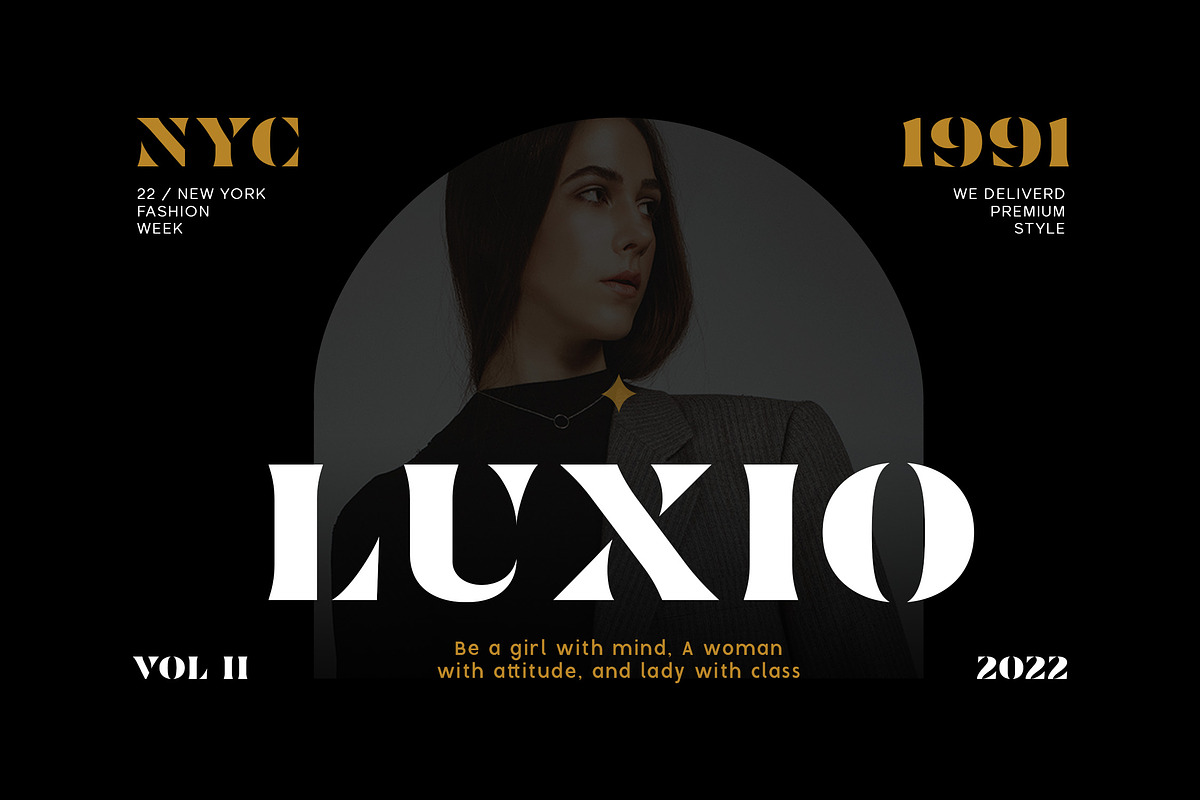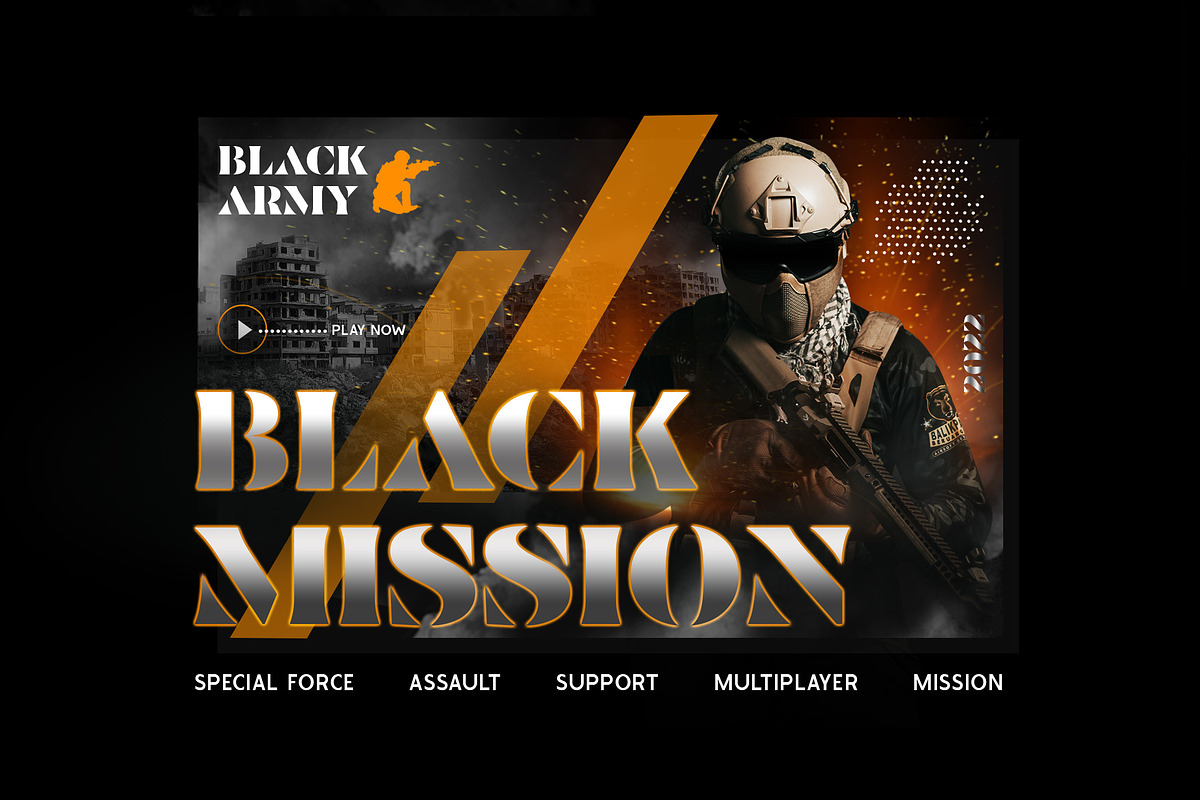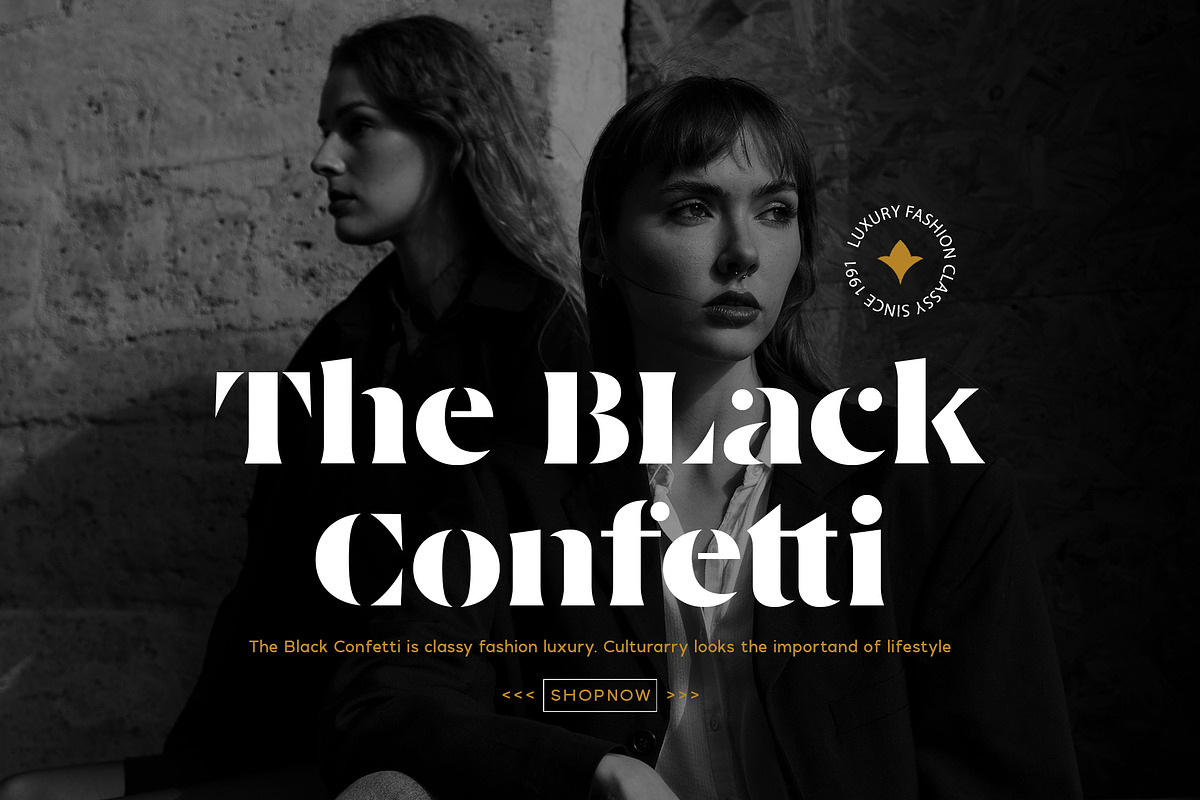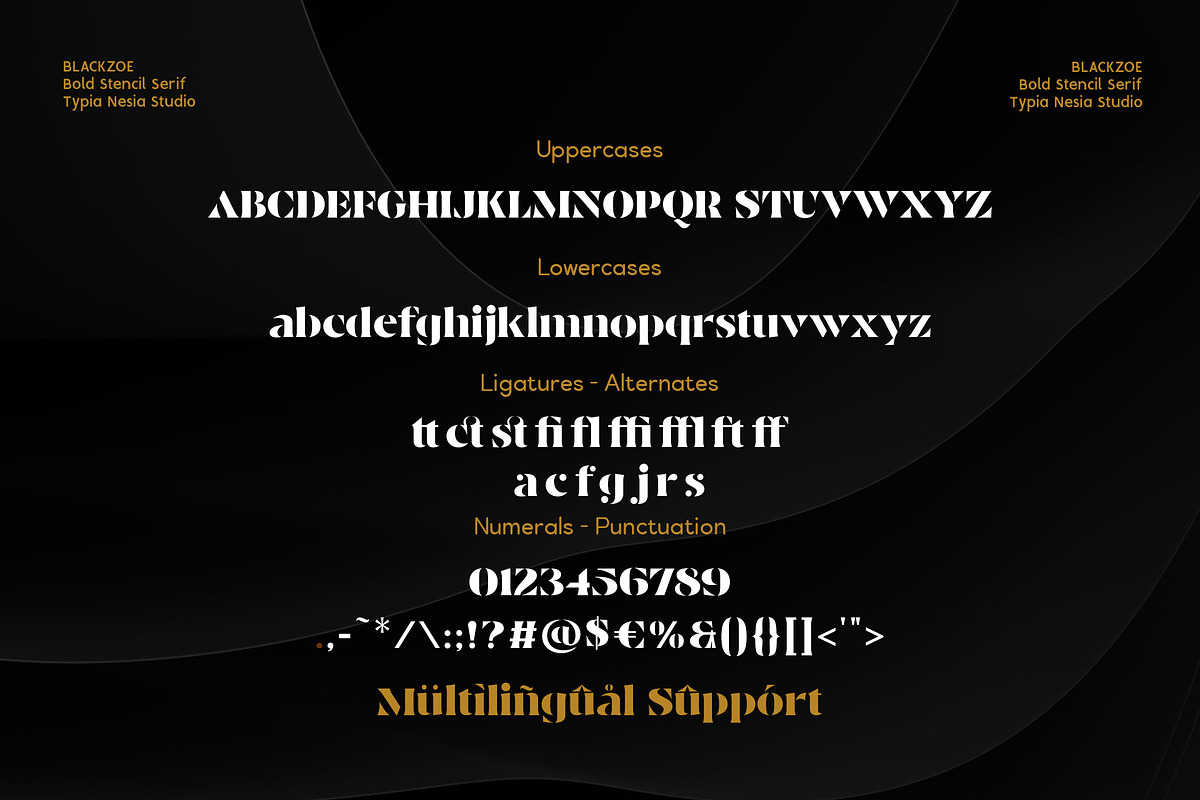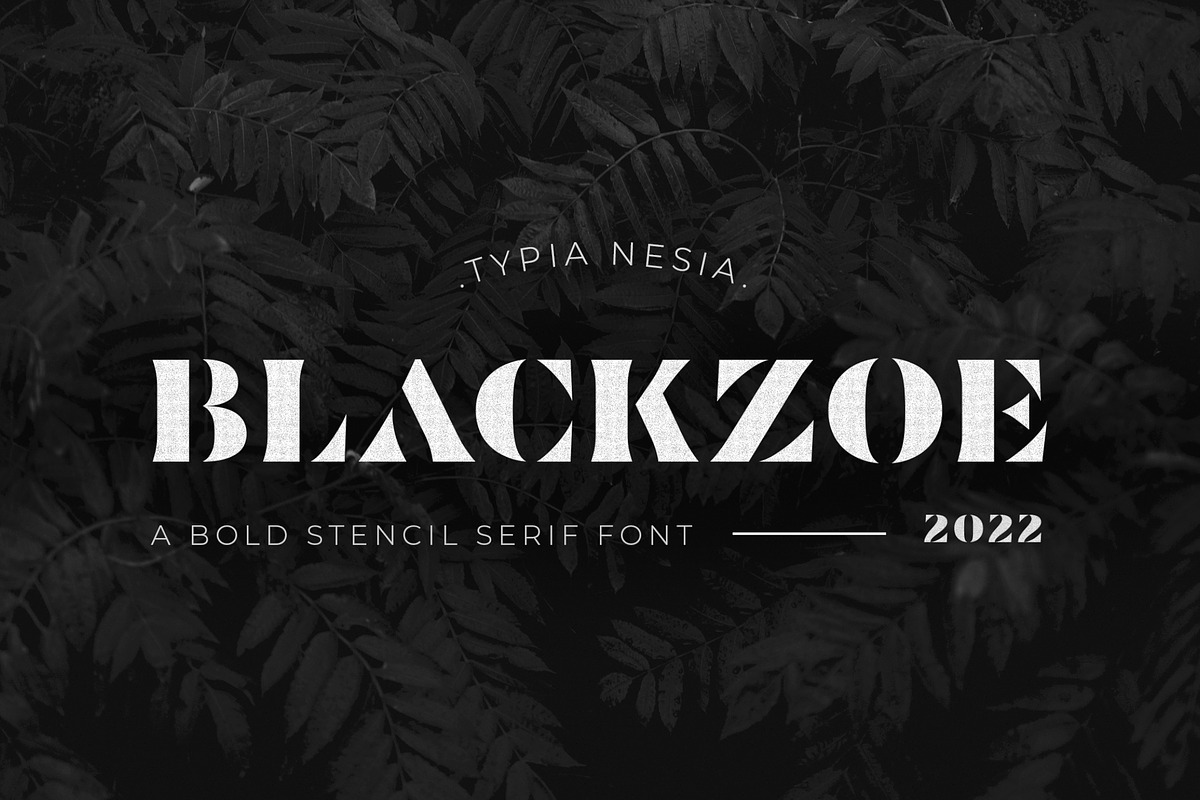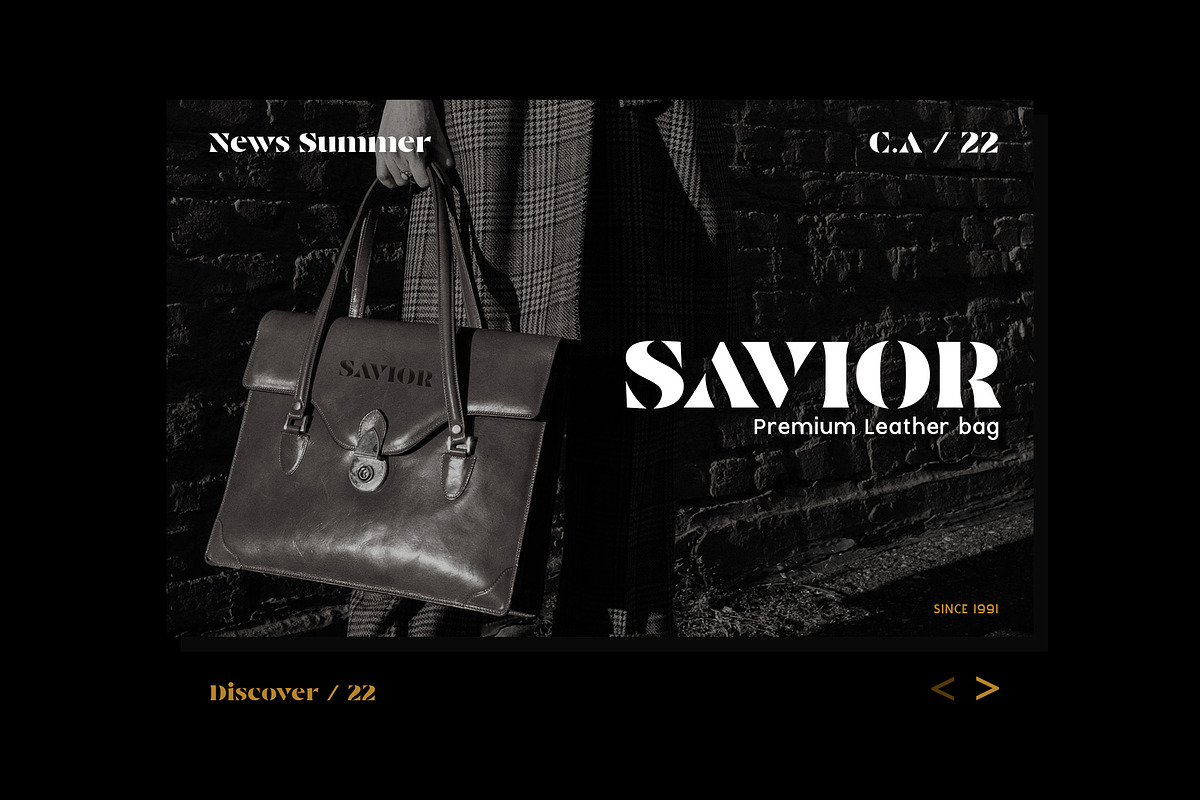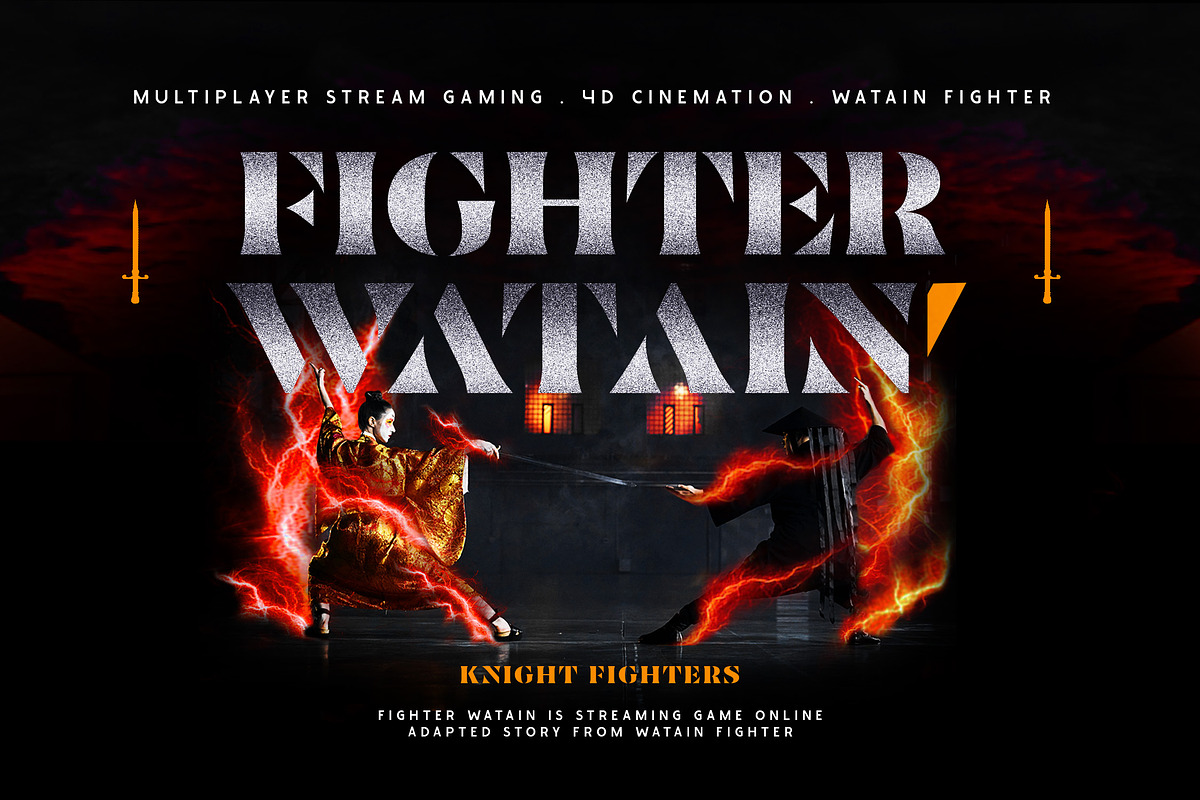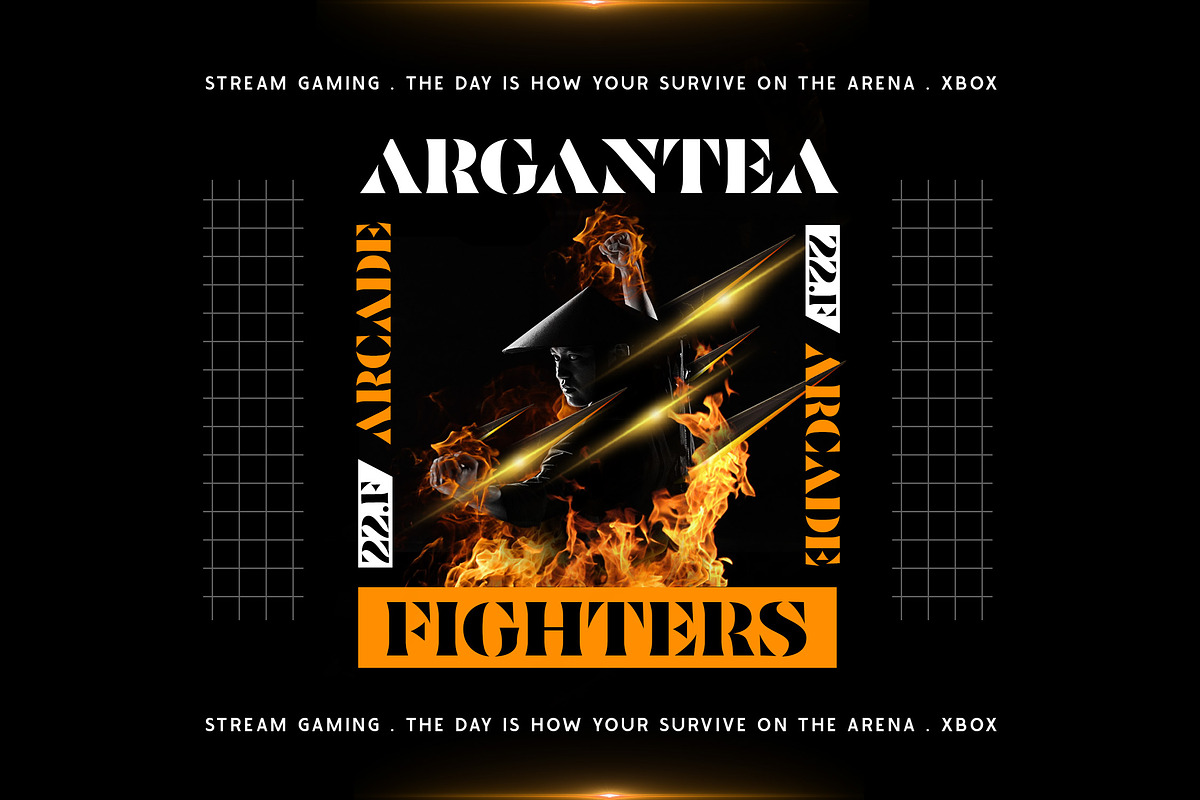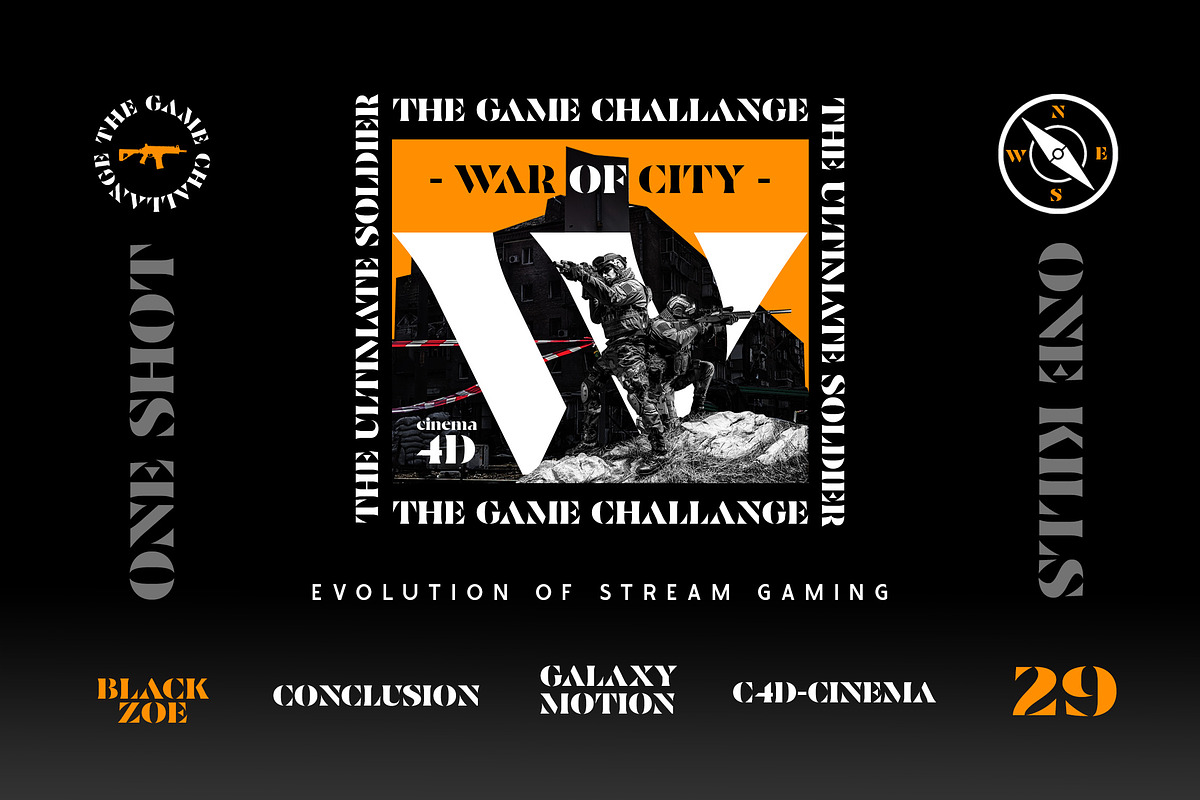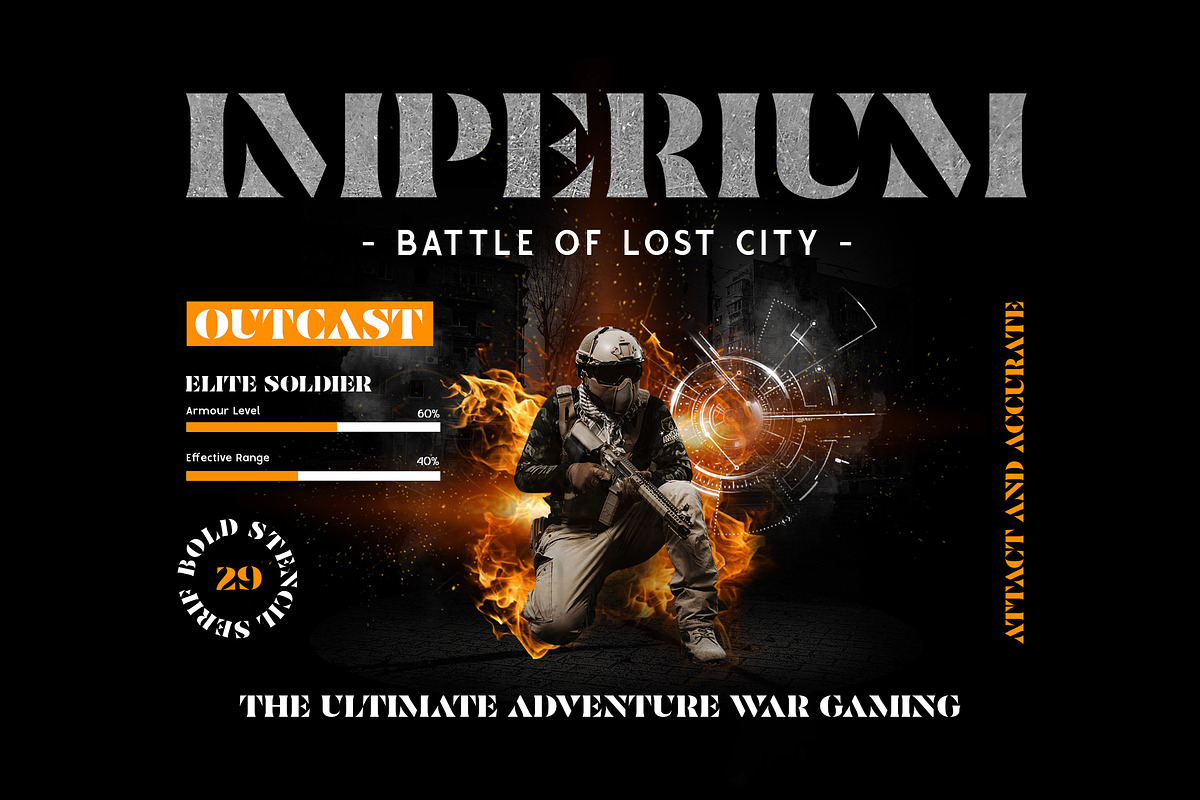
Blackzoe Stencil Serif
Blackzoe - Modern Bold Stencil Serif - Fantasy and Military Game Display Font
Blackzoe Modern Stencil Serif font is perfect for your up coming projects. Such as luxury logo and branding, classy editorial design, woman magazine, sport and game brand, fashion promotional, art gallery branding, museum, historical of architectural, adventure branding, stationery design, blog design, modern advertising design, card invitation, art quote, home decor, book/cover title, special events and any more.